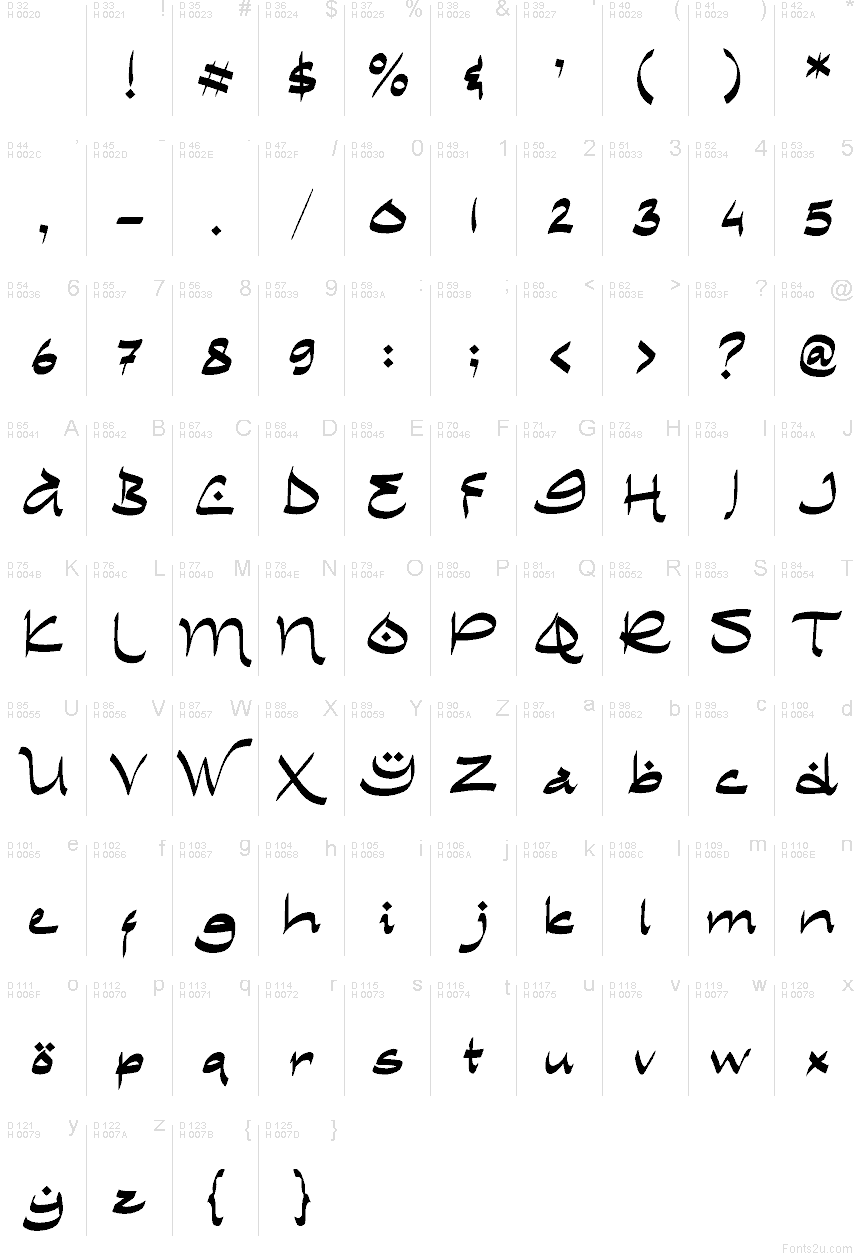
Rubaith
Rubaith font by Excellent Ritma Florendia is a free faux Arabic foreign typeface with a bold, inky swing that instantly calls up Middle Eastern atmosphere. Its sweeping curves and pointed strokes look like energetic brush calligraphy, while the diamond-shaped dots add a distinct ornamental sparkle. Letters connect in a loose, flowing rhythm, so even a single word feels like a hand-painted sign hanging over a lantern-lit street.
Using Rubaith, you can give instant cultural cues to posters, Ramadan and Eid event branding, halal restaurant logos, menu headings, spice or tea packaging, book covers, and social media banners. This free font shines at large sizes where its strokes can really breathe; pair it with a clean geometric sans-serif for secondary text to keep your layouts legible and grounded.